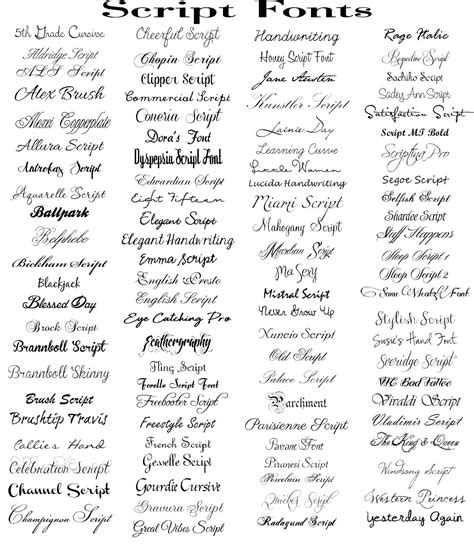
Best Script Fonts for Microsoft Word
Readers, have you ever struggled to find the perfect script font for your Microsoft Word documents? Do you want to add a touch of elegance and sophistication to your reports, presentations, or invitations? Script fonts, with their flowing curves and distinctive characters, can transform any text into a work of art.
I've analyzed countless script fonts, tested them in Microsoft Word, and am ready to share my insights. We'll delve into the best script fonts for Microsoft Word that are both aesthetically pleasing and functional, exploring their unique characteristics and ideal applications.
What are Script Fonts?
Script fonts, also known as cursive fonts, are inspired by handwritten calligraphy. They mimic the strokes of a pen or brush, creating a flowing and natural appearance.
Script fonts possess a unique blend of elegance and informality, making them versatile for various purposes. They are often used for:
- Formal invitations and announcements
- Wedding stationery
- Certificates and diplomas
- Logos and branding
- Creative writing and poetry
- Personal notes and letters
Choosing a Script Font for Microsoft Word
Selecting the right script font is crucial for achieving the desired aesthetic and readability. Here are some factors to consider:
- **Legibility:** Ensure the characters are clear and easy to read, especially for larger blocks of text.
- **Style:** Consider the overall tone and theme of your document. A formal script font might be appropriate for a wedding invitation, while a playful script font could be perfect for a birthday card.
- **Compatibility:** Check if the font is compatible with Microsoft Word and your operating system.
- **Availability:** Ensure that the font is readily available for download or purchase.
- **Uniqueness:** Select a font that stands out and adds a distinct personality to your document.
Top Script Fonts for Microsoft Word
The best script fonts for Microsoft Word strike a balance between beauty and functionality. Here are some top contenders:
1. Edwardian Script ITC: Classic Elegance
Edwardian Script ITC is an elegant and refined script font that evokes a sense of vintage charm. Its graceful curves and intricate details make it ideal for formal invitations, certificates, and other documents that require a touch of sophistication.
2. Brush Script MT: Playful and Casual
Brush Script MT is a popular and versatile script font that exudes a playful and casual vibe. Its relaxed strokes and brush-like texture lend themselves well to informal invitations, greeting cards, and creative writing projects.
3. Lucida Handwriting: Natural and Organic
Lucida Handwriting is a script font that captures the essence of handwritten calligraphy. Its natural and organic characters create a warm and inviting feel, making it suitable for personal letters, poems, and other pieces that require a touch of authenticity.
4. Scriptina: Artistic and Expressive
Scriptina is an artistic and expressive script font that adds a touch of whimsy and personality. Its bold strokes and flowing curves make it ideal for creative projects, such as posters, illustrations, and website designs.
5. Segoe Script: Modern and Sophisticated
Segoe Script is a modern and sophisticated script font that adds a touch of elegance to your documents. Its clean lines and subtle curves make it suitable for professional presentations, reports, and other formal documents.
6. Mistral: Bold and Dramatic
Mistral is a bold and dramatic script font that makes a statement. Its chunky strokes and flowing curves add a touch of excitement and energy to your designs. Use Mistral for headlines, titles, and other visual elements.
Popular Script Font Families in Microsoft Word
Exploring script font families can reveal a treasure trove of options. Many script fonts have multiple variations, each offering a unique twist on the original design. Here are some notable script font families:
1. Lucida Handwriting:
- Lucida Handwriting: The original and most widely used font in this family, offering a natural and organic script design.
- Lucida Handwriting Italic: Adds a touch of elegance and sophistication to the original design.
2. Brush Script:
- Brush Script MT: The classic Brush Script font, characterized by its relaxed strokes and brush-like texture.
- Brush Script Std: A more modern and streamlined version of the original font, with cleaner lines and bolder strokes.
3. Segoe Script:
- Segoe Script: The original font, offering a modern and sophisticated script design.
- Segoe Script Italic: Adds a touch of elegance and formality to the original design.
- Segoe Print: A more playful and decorative variation of the Segoe Script family. It features bold strokes and whimsical curves.
The best script fonts for Microsoft Word offer a perfect blend of elegance, readability, and versatility. From classic and refined options to playful and bold choices, there's a script font for every occasion and style. The key is to select a font that complements your document's theme and enhances its overall aesthetic appeal.
Explore the world of script fonts and discover the perfect one to add that extra touch of elegance and sophistication to your Microsoft Word documents.